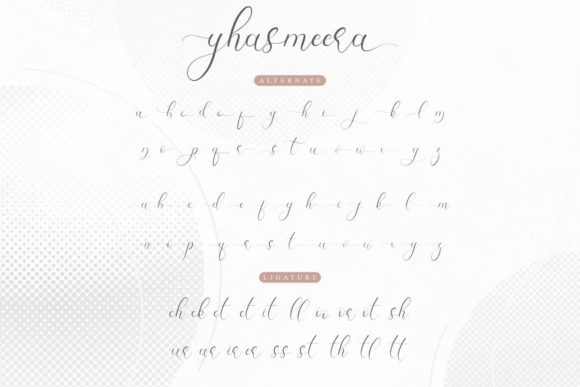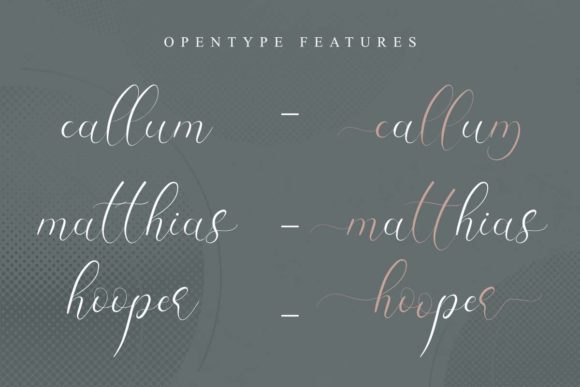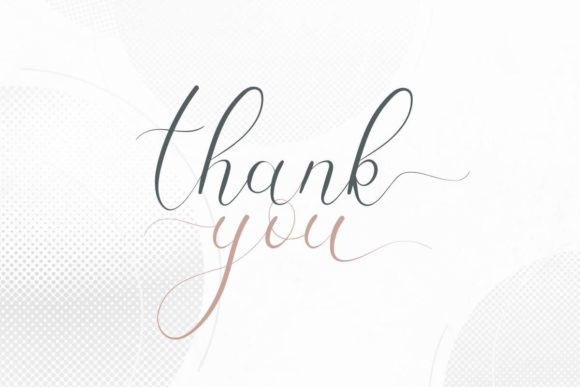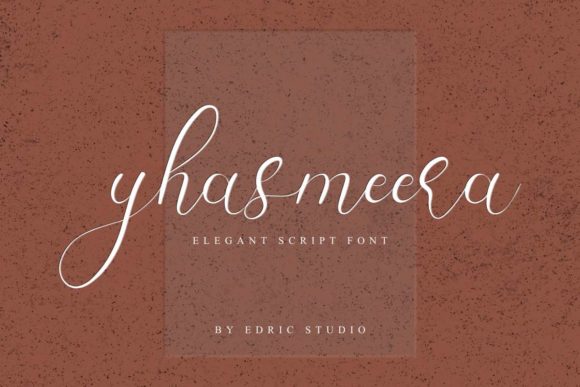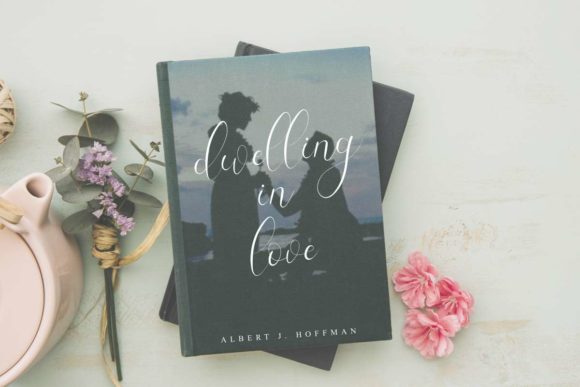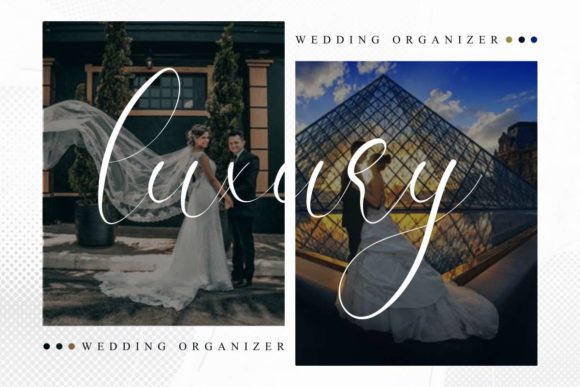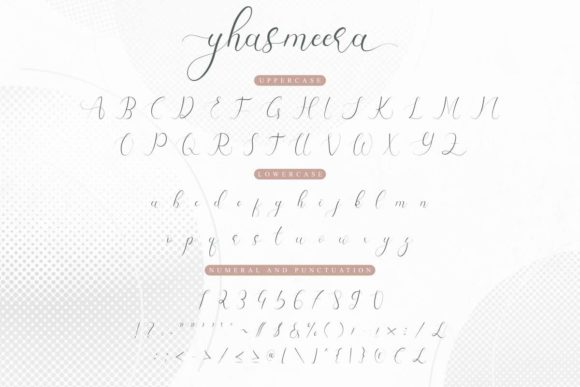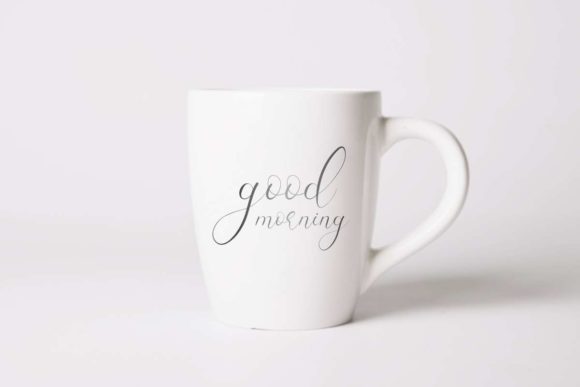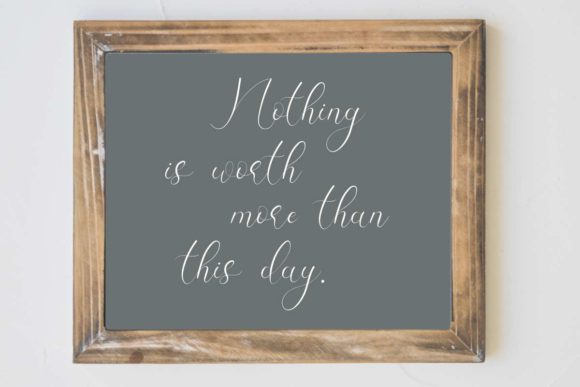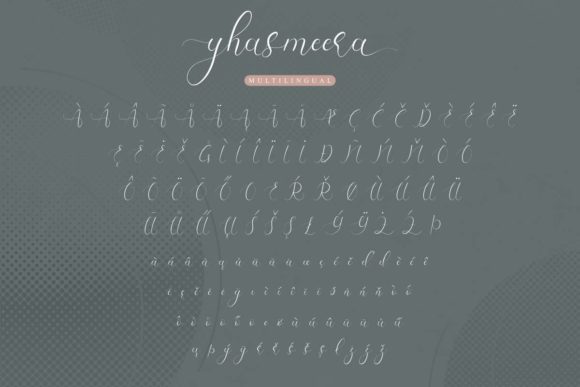
Yhasmeera Font
About Yhasmeera Font
Yhasmeera is a friendly and delicate script font that is perfect for your next project. Get inspired by its one-of-a-kind appearance!